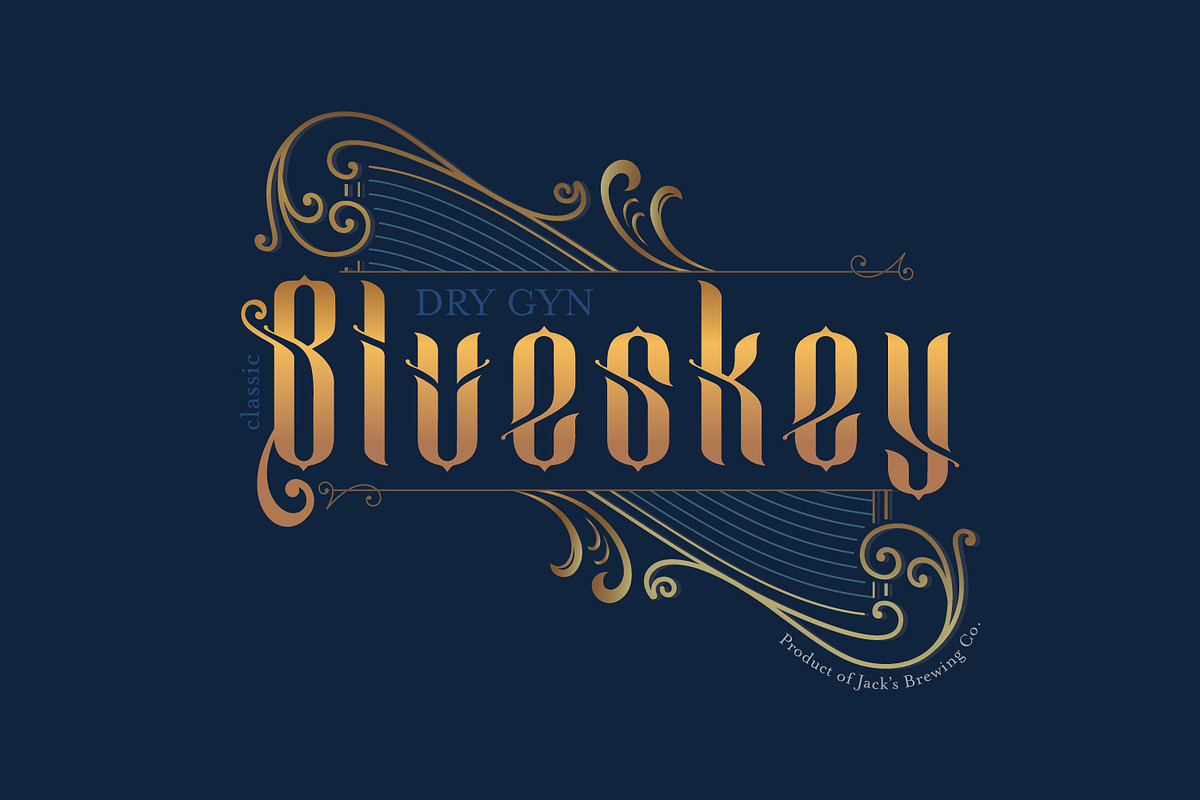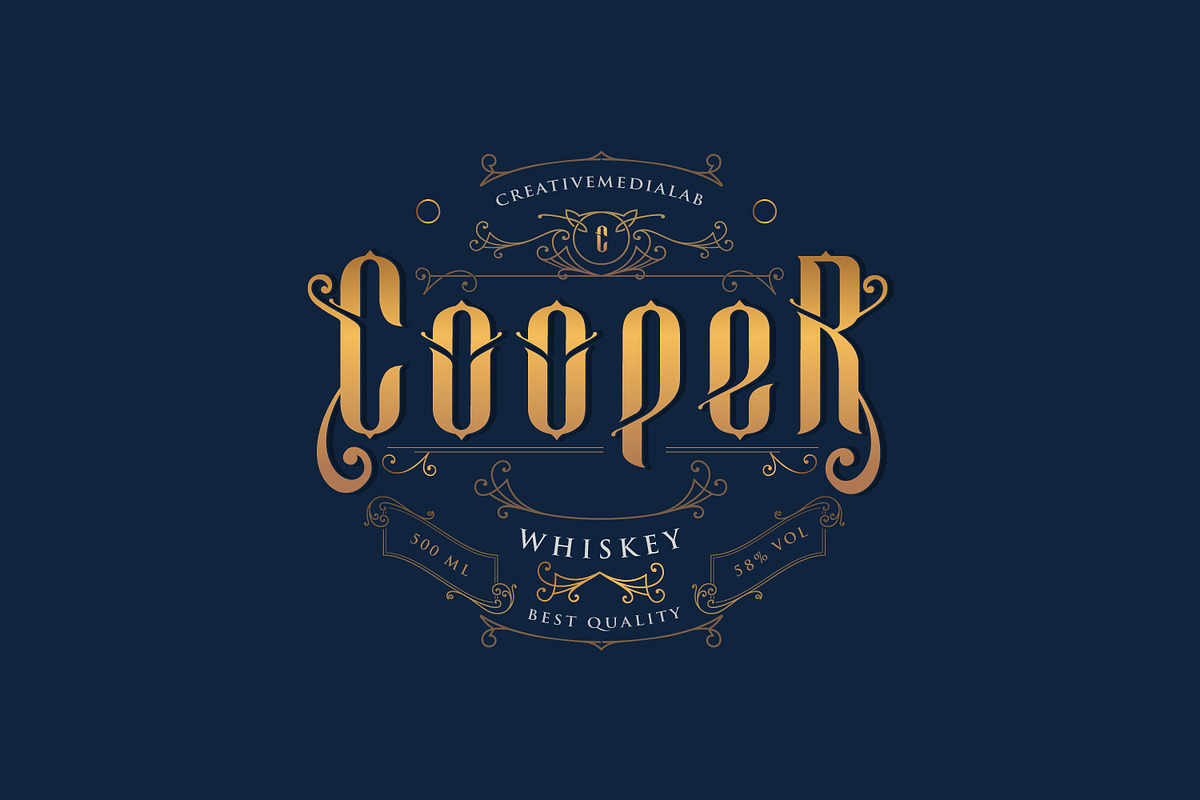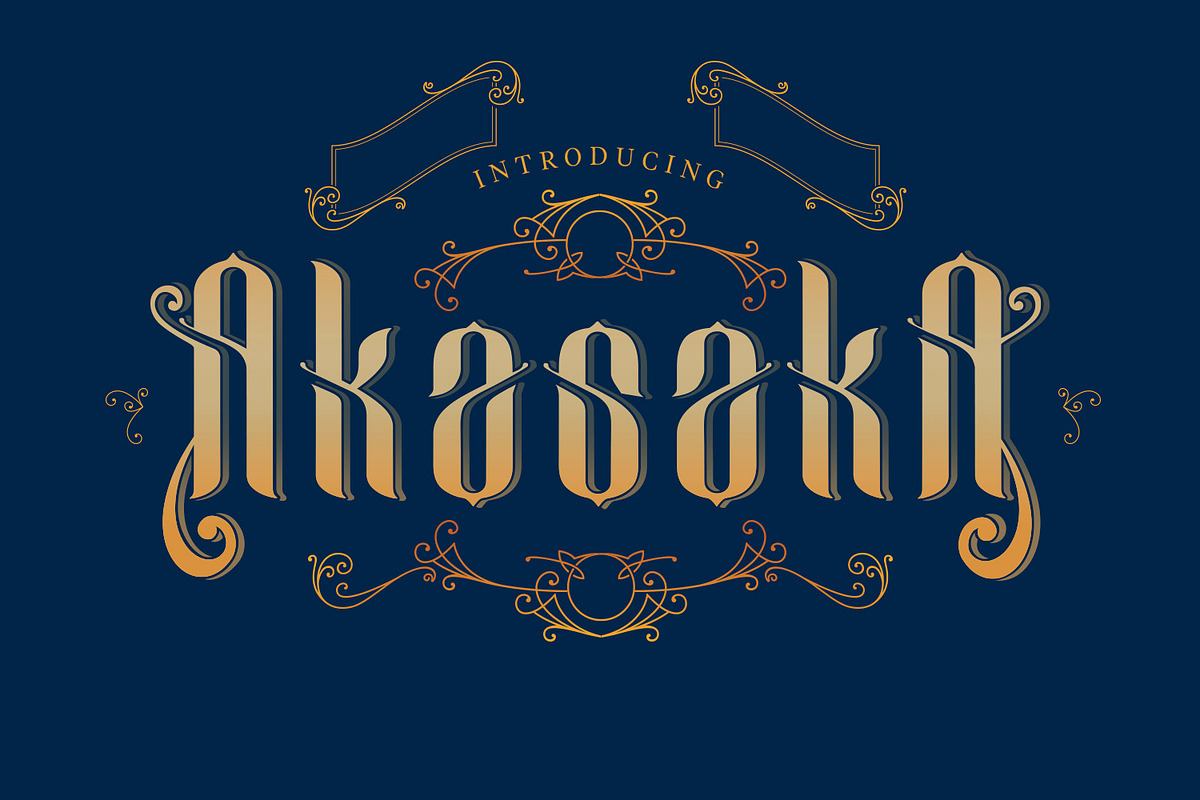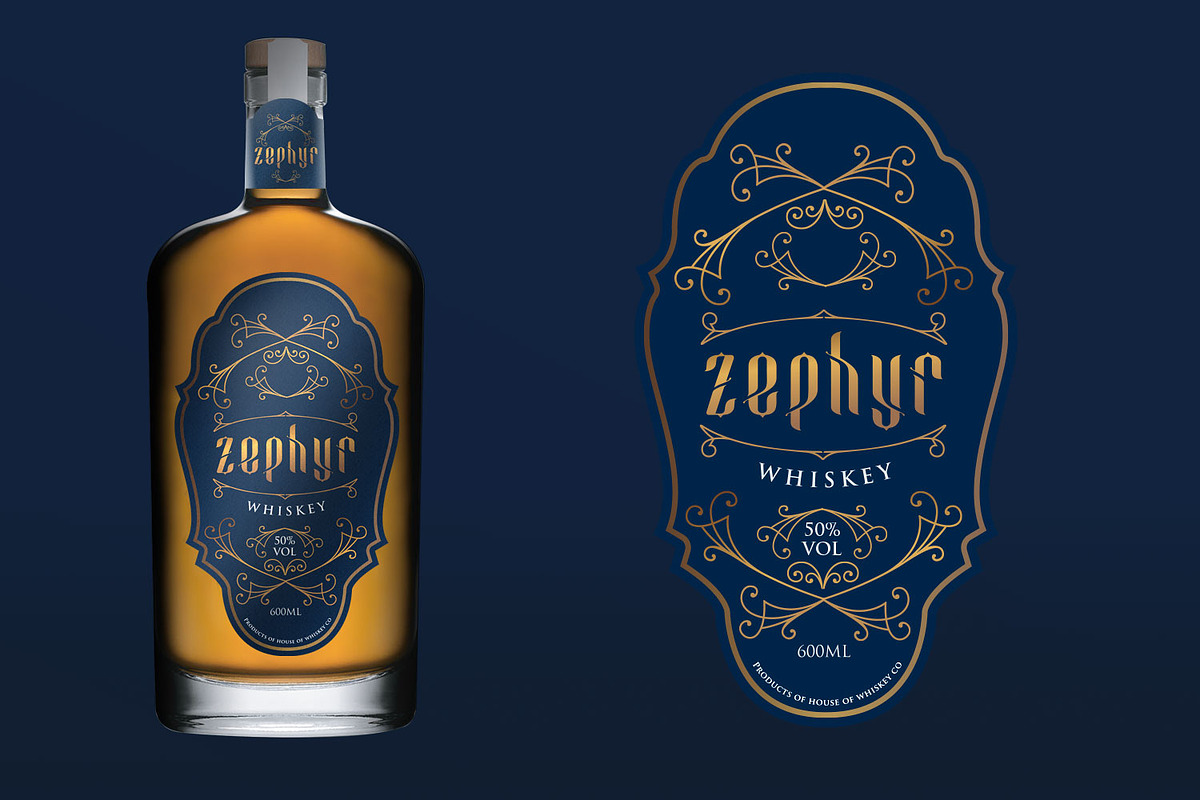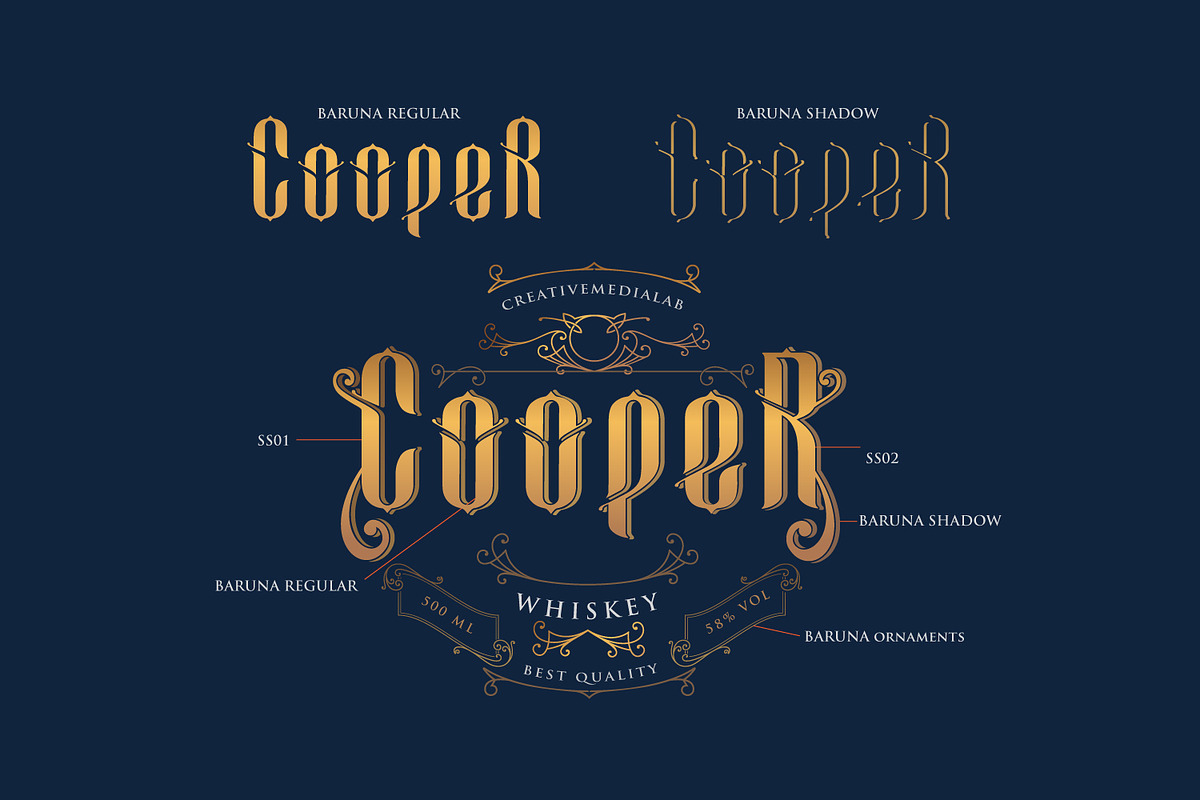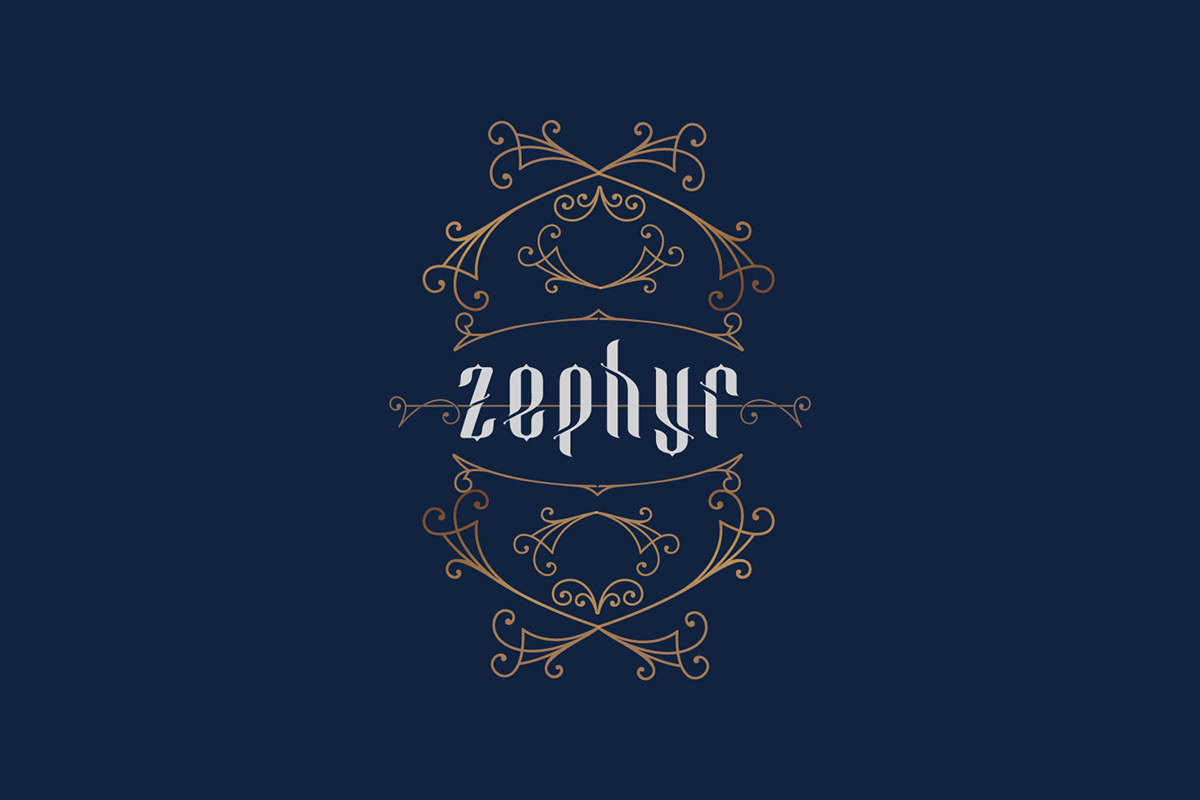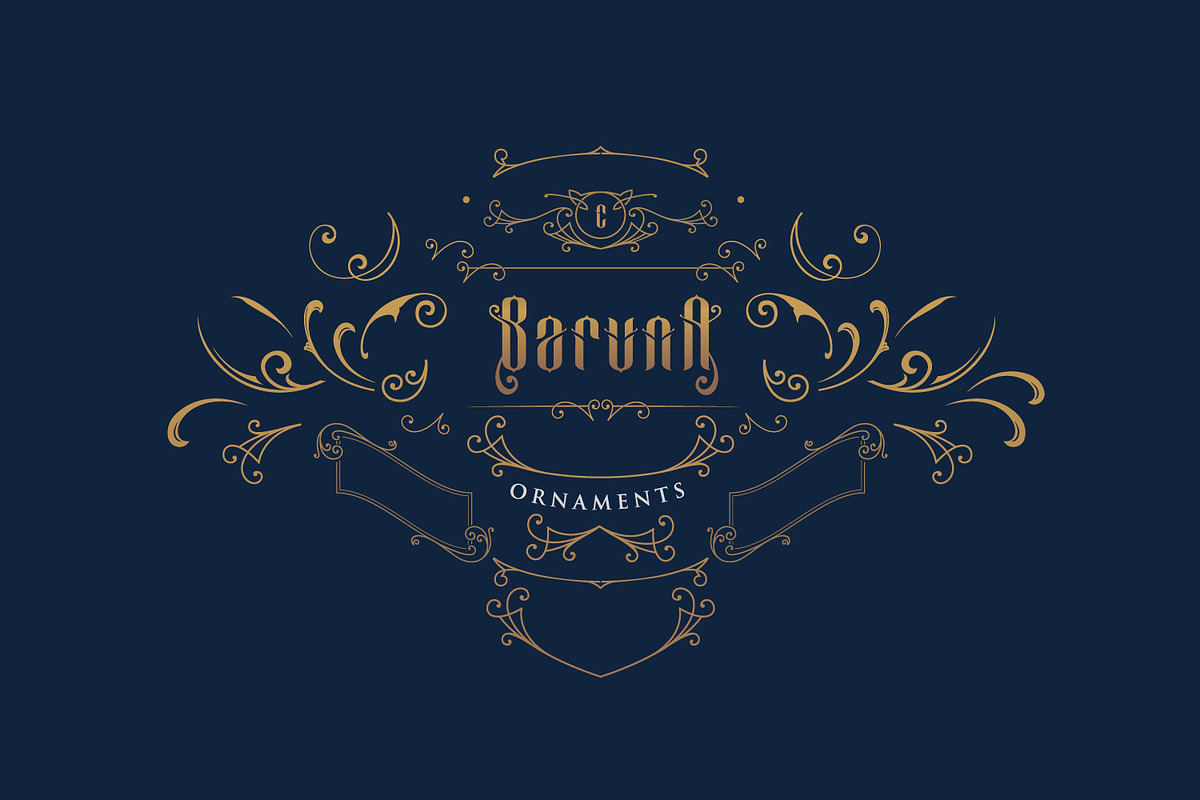
Introducing a new display decorative font that you never seen before. uppercase characters has left and right option style so you can create a beautiful display letter using Baruna.
Baruna Typeface packaged with regular, layer and ornament it is perfect for quotes, logos, label, Victorian style design, Halloween Themes or packaging design.
All Caps & Small Caps font
A total of 320 Glyphs
- All Caps & Small Caps font
- A total of 320 Glyphs
- OpenType Features
- Baruna Regular
- Baruna Ornaments
- Baruna Shadow